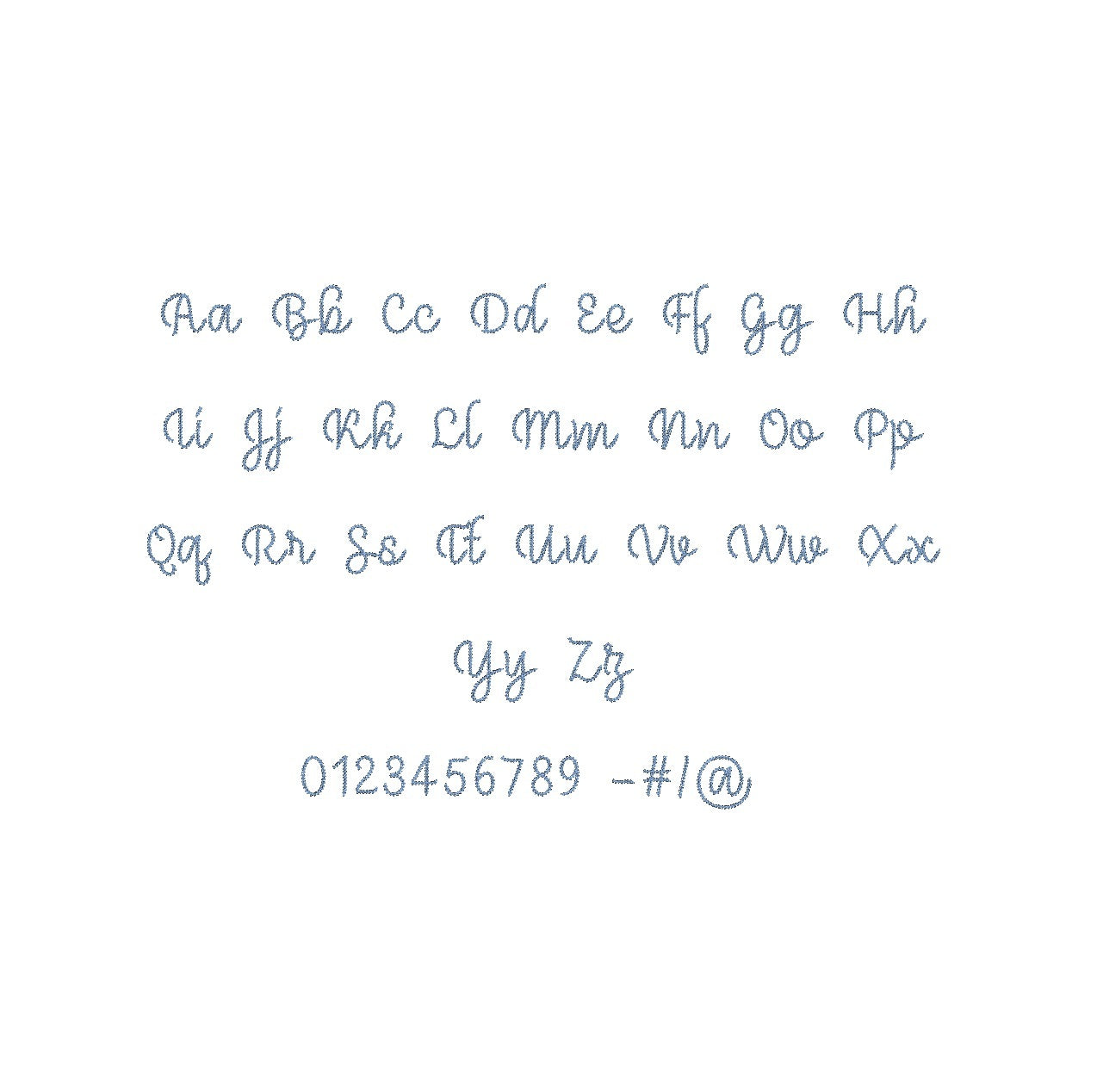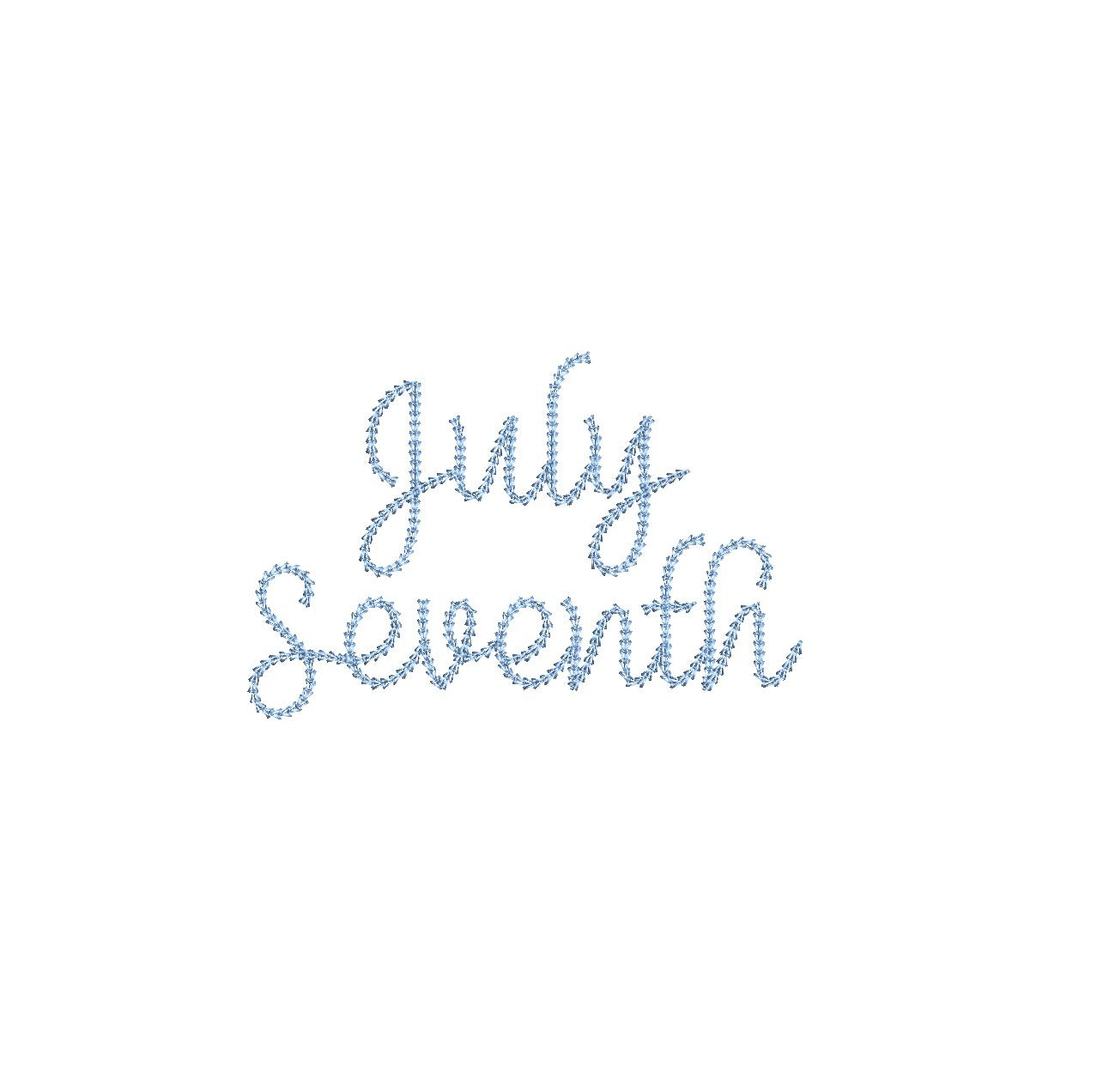
Elevate your embroidery with the July Seventh Chain Stitch ESA font. Compatible with Wilcom Studio e4.5.6 and Hatch 3 versions and up, it infuses your designs with a touch of artistry. Meticulously crafted, the font's chain stitch technique adds depth and allure to every project. Seamlessly integrate for captivating results that stand out. July Seventh transforms fabric into a canvas of creativity, enhancing your creations with a unique charm. Elevate your embroidery with this seamless blend of technology and artistry. Experience the magic of July Seventh Chain Stitch ESA font to redefine stitching excellence. Upgrade your designs today for lasting impact.